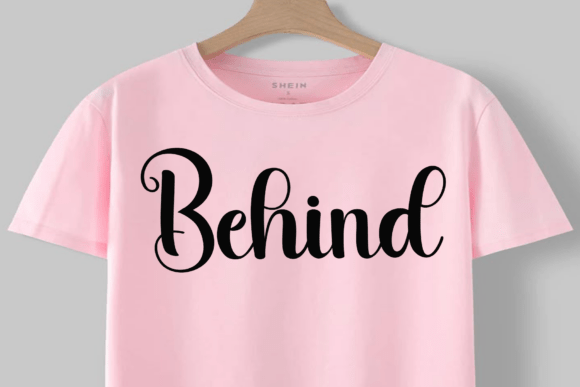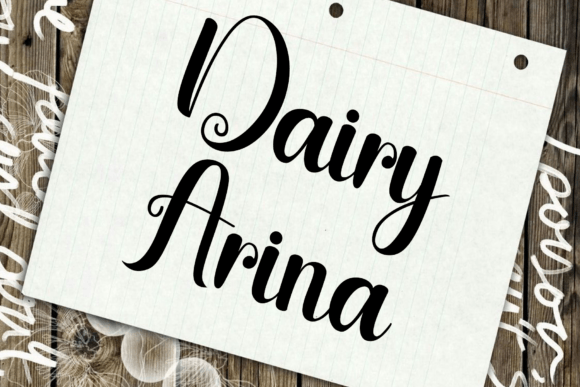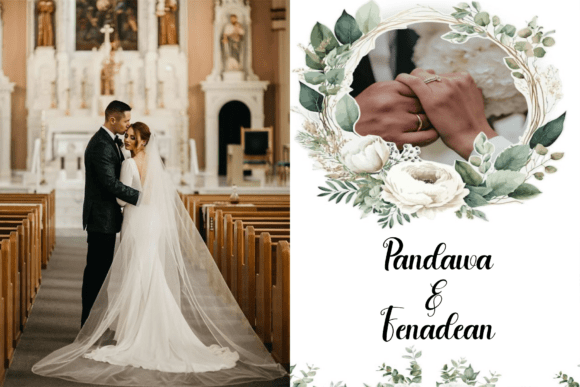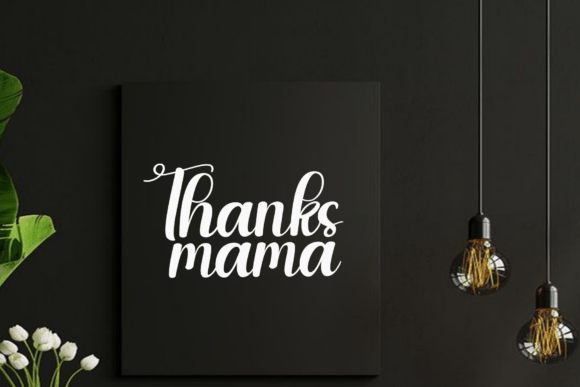
Aunty Font: Elevate Your Designs with a Touch of Timeless Elegance
In the world of typography, few fonts manage to strike a balance between classic sophistication and modern flair. Aunty Font, however, achieves this delicate balance with ease, offering a stylish handwritten font that brings a contemporary atmosphere and impeccable form to any design project. Inspired by timeless classic calligraphy, Aunty Font is a versatile and elegant typeface that is sure to enhance the beauty of your creations.
The Inspiration Behind Aunty Font
Aunty Font draws its inspiration from the art of classic calligraphy, where the elegance of handwritten script meets the precision of typographic design. The result is a font that exudes a sense of refinement and poise, perfect for designers and crafters looking to add a touch of sophistication to their work. With its roots in traditional calligraphy, Aunty Font brings a sense of heritage and timelessness to modern design.
Key Features of Aunty Font
Aunty Font boasts a range of features that make it an ideal choice for designers and crafters. Some of its key characteristics include:
- Balanced and Varied: Aunty Font is designed to offer a balanced and varied look, with carefully crafted letterforms that work harmoniously together.
- Contemporary Atmosphere: Despite its classic inspiration, Aunty Font has a distinctly contemporary feel, making it perfect for modern design projects.
- Impeccable Form: Each letterform in Aunty Font is meticulously designed to ensure impeccable form and a high level of legibility.
- Stylish Handwritten Appearance: Aunty Font’s handwritten appearance adds a touch of personality and warmth to any design.
Uses for Aunty Font
Aunty Font’s versatility makes it suitable for a wide range of design applications. Here are some ideas to get you started:
- Branding and Logo Design: Use Aunty Font to create elegant and sophisticated brand identities that stand out from the crowd.
- Wedding and Event Stationery: Add a touch of classic romance to your wedding and event stationery with Aunty Font’s beautiful handwritten script.
- Packaging Design: Elevate your packaging design with Aunty Font’s stylish and contemporary appearance.
- Digital Design: Use Aunty Font in digital design projects, such as website headers, social media graphics, and more.
Why Choose Aunty Font?
With so many fonts available, why choose Aunty Font? Here are just a few reasons why Aunty Font stands out from the crowd:
- Unique and Elegant: Aunty Font offers a unique and elegant appearance that will set your designs apart.
- Highly Versatile: Aunty Font’s versatility makes it suitable for a wide range of design applications.
- Easy to Read: Aunty Font’s clear and legible letterforms ensure that your message is communicated effectively.
In conclusion, Aunty Font is a stylish and elegant handwritten font that brings a touch of timeless classic calligraphy to modern design. With its balanced and varied appearance, impeccable form, and contemporary atmosphere, Aunty Font is the perfect choice for designers and crafters looking to elevate their designs. Whether you’re working on branding, packaging, or digital design, Aunty Font is sure to enhance the beauty of your projects.